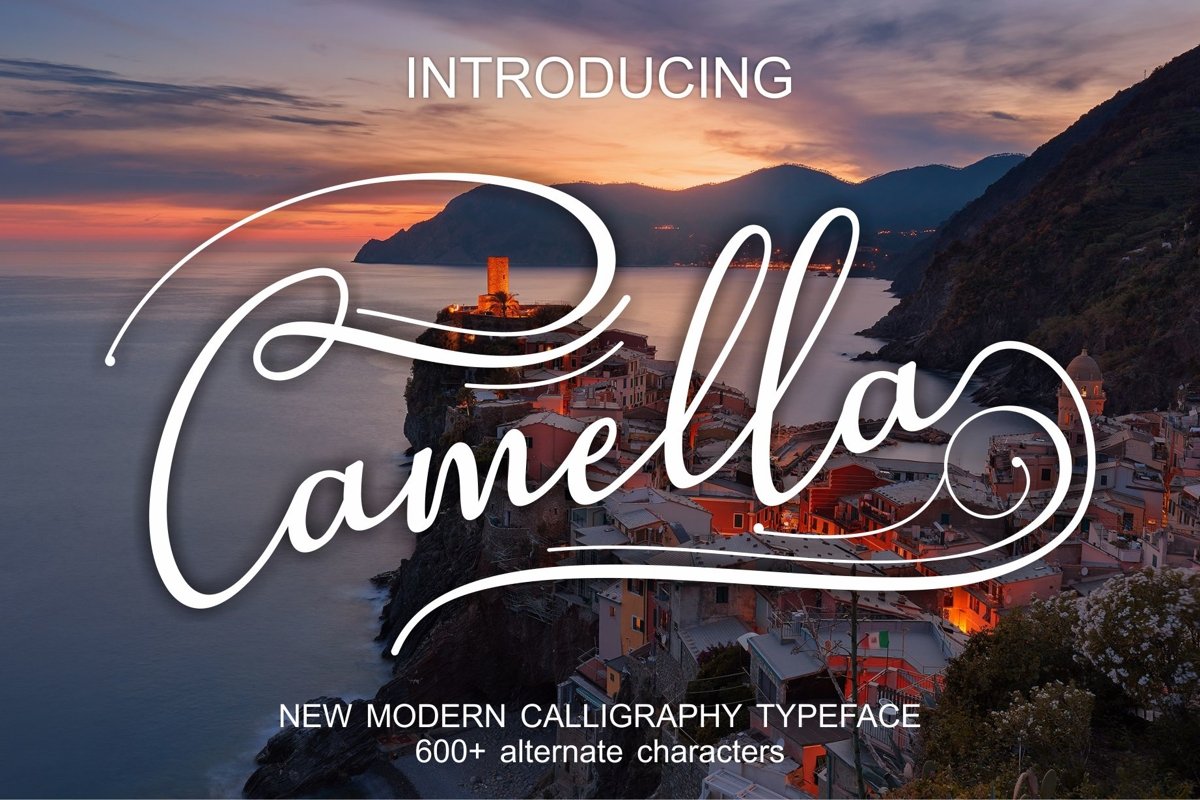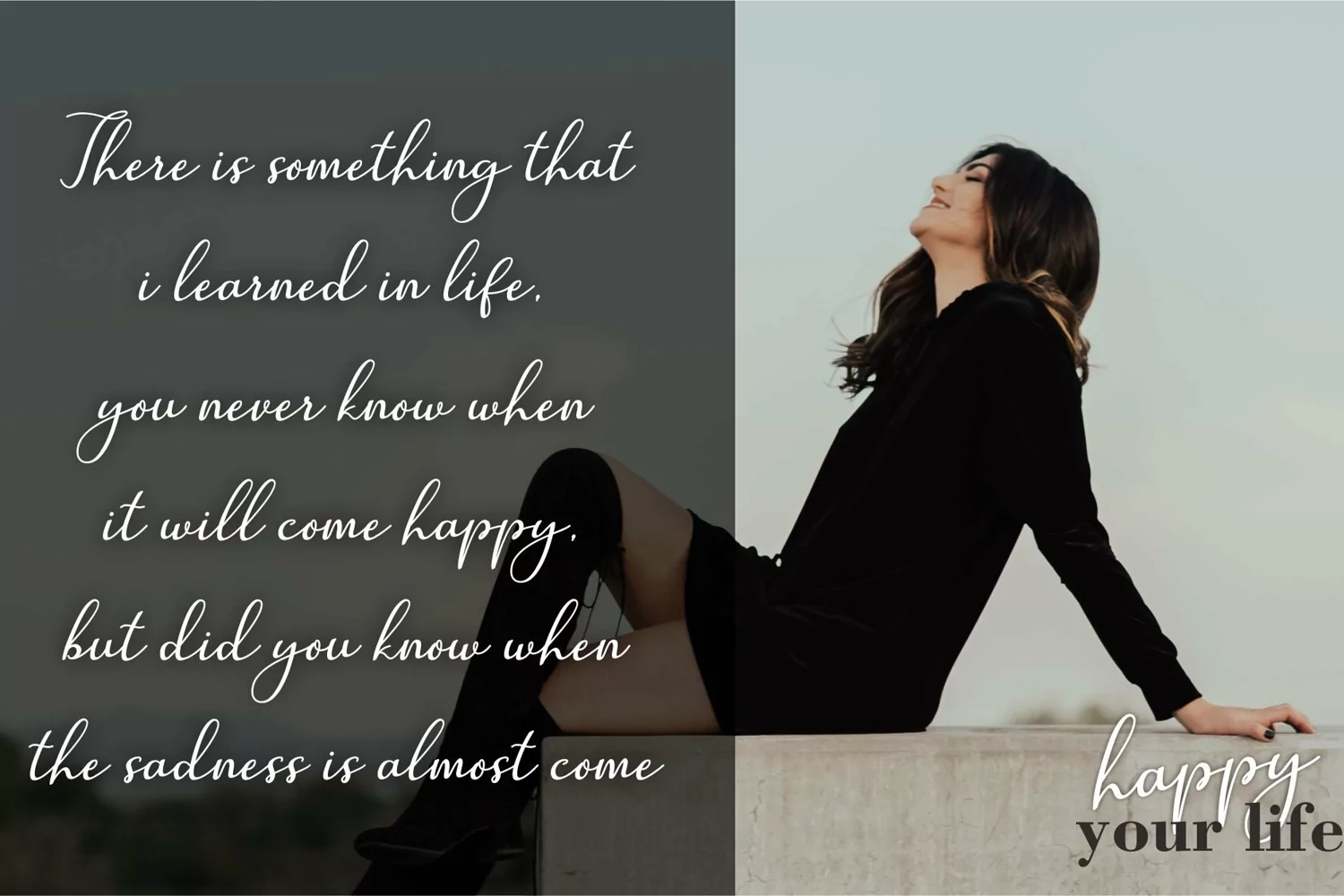
Camella
Camella is a connecting script with dancing baseline, which is designed to convey elegance and style. It is clean, feminine and friendly. Works perfectly for logos, magazines, menus, books, invitations, wedding / greeting cards, packaging, labels, t-shirt etc. All designs you will have a wonderful homemade touch with Camella.
When it comes to the set of glyphs, have 800+ glyphs and 600+ alternate characters. offers a variety of features such as ligatures, swashes, endings, and many early forms alternately to unleash your creativity and also supported multiple languages. To make the most of the alternatives proposed, using an application that supports Open Type. such as Adobe Illustrator CS, Adobe Indesign,Adobe Photoshop and CorelDraw X6-X7-x8.